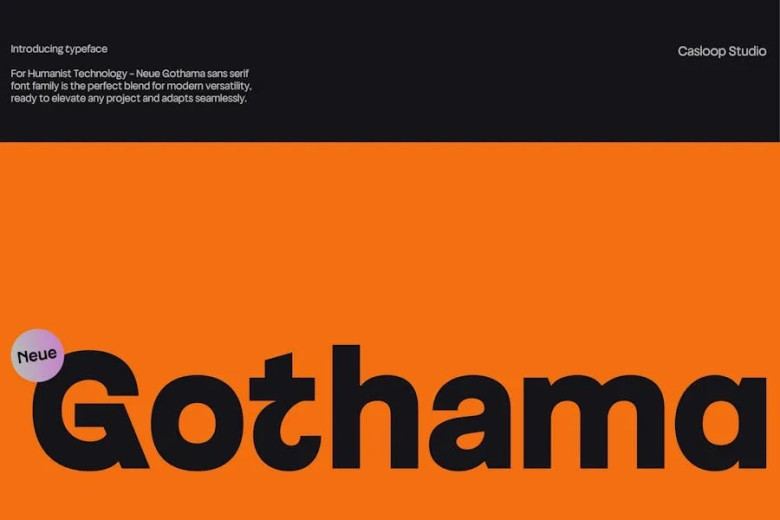
Neue Gothama Font Family
Neue Gothama Font
Neue Gothama Font Family is a geometric sans serif type, which combine humanist and neogothic typefaces, so it is ideal for any advanced level design work. Its minimalistic and fresh looking with closedow distinct uppercase characters and a large x-height making the content easily legible and effective. This superior font family is available both, straight and oblique, and in light, book, medium, demi-bold, bold, black, and demi-black styles.
The ultra-modern and elegant lettering types look simple and rather suggestive and are very much suitable for small sizes as well, which make this typeface best suited for corporate logos, product labels, web page iconography, and any visual representations on the World Wide Web.
Neue Gothama Sans Serif Font Family